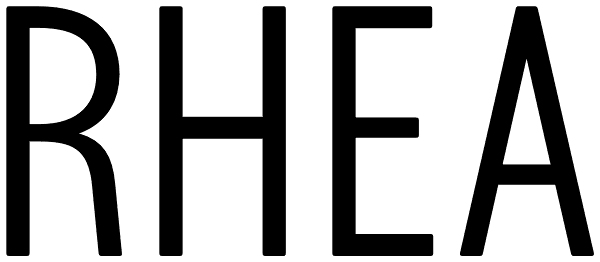
Rhea
Rhea is a family of condensed all-caps sans serif fonts. It is equipped with a bunch of accented characters. There are alternate letterforms for M & W, easily accessible via opentype features. Due to its nine styles, ranging from an elegant thin to...
Rhea Thin
Rhea
Rhea Light
Rhea Heavy
Rhea Medium
Rhea Demi Bold
Rhea Bold
Rhea Black
Rhea Fat